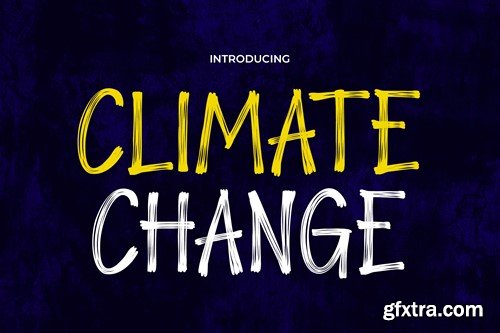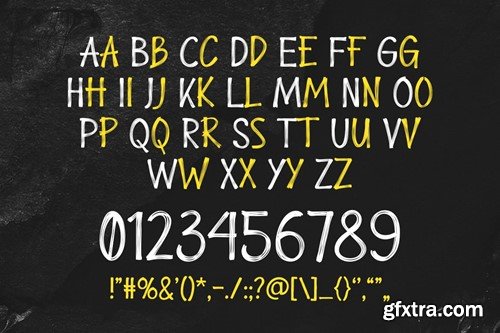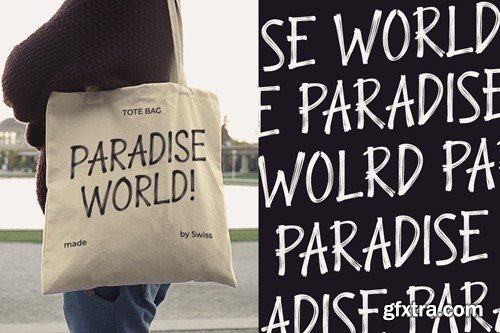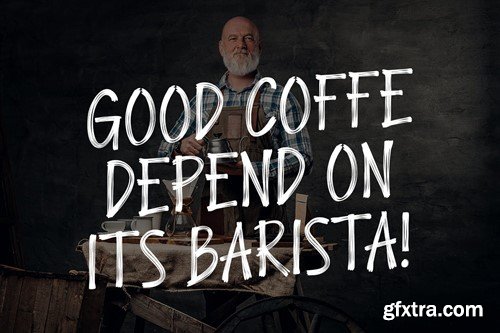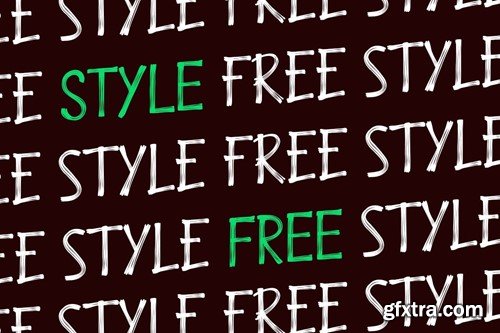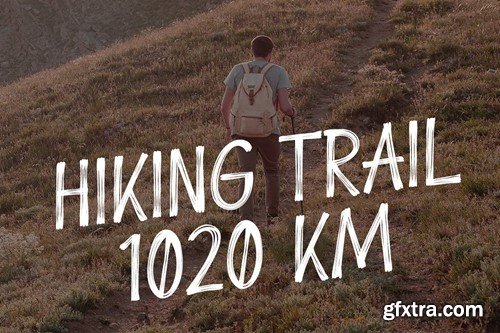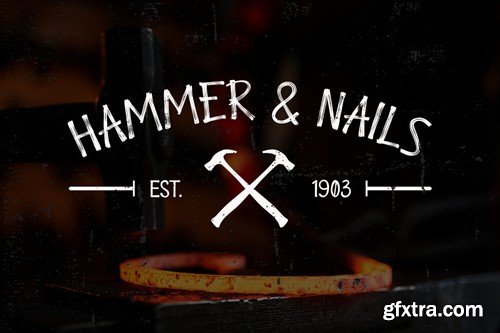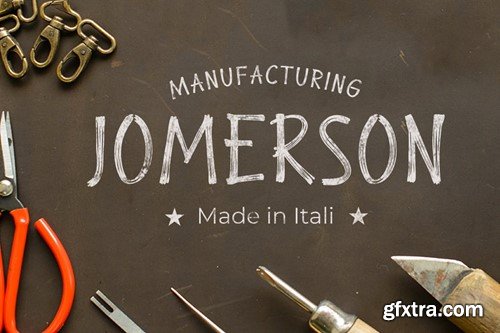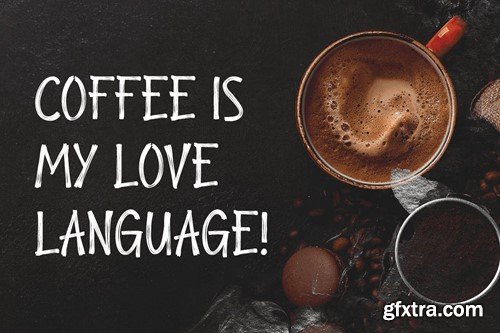
气候变化 - 现代手写涂鸦字体3C2GSNQ
Climate Change - Modern Handwritten Graffiti Font 3C2GSNQ
Climate Change - Modern Handwritten Graffiti Font
Experience the fusion of modernity and street artistry in Climate Change, a captivating graffiti font. Its modern handwritten style seamlessly blends contemporary aesthetics with an urban edge, making it a perfect choice for logos, quotes, invitations, packaging, and versatile design projects. The font exudes a dynamic vibe, ideal for greeting cards, poster headlines, and various branding endeavors. Climate Change embodies the essence of urban expression while delivering a modern twist.
• Basic Latin A-Z and A-z
• Numbers
• Punctuation